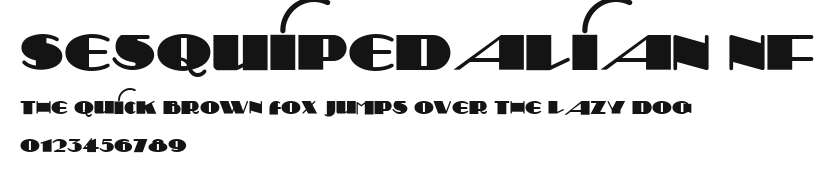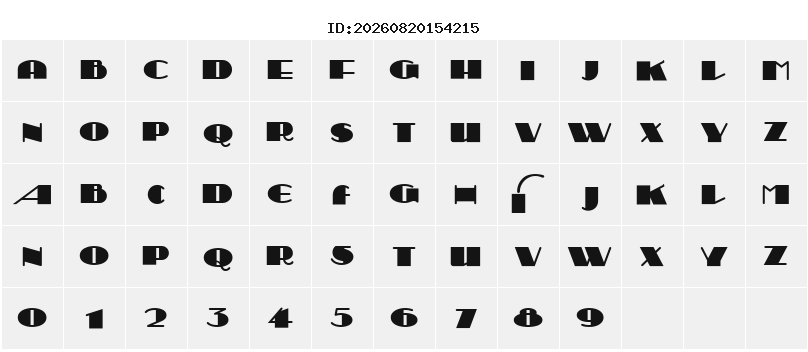
• Font Name: Sesquipedalian NF
• Full Font Name: Sesquipedalian NF
• Designer: Nick Curtis
• Manufacturer: Nick's Fonts
About Sesquipedalian NF.ttf
Sesquipedalian NF.ttf is a modern, elegant sans-serif font designed for ultimate readability and visual harmony. Perfect for branding, headlines, web design, and print materials.